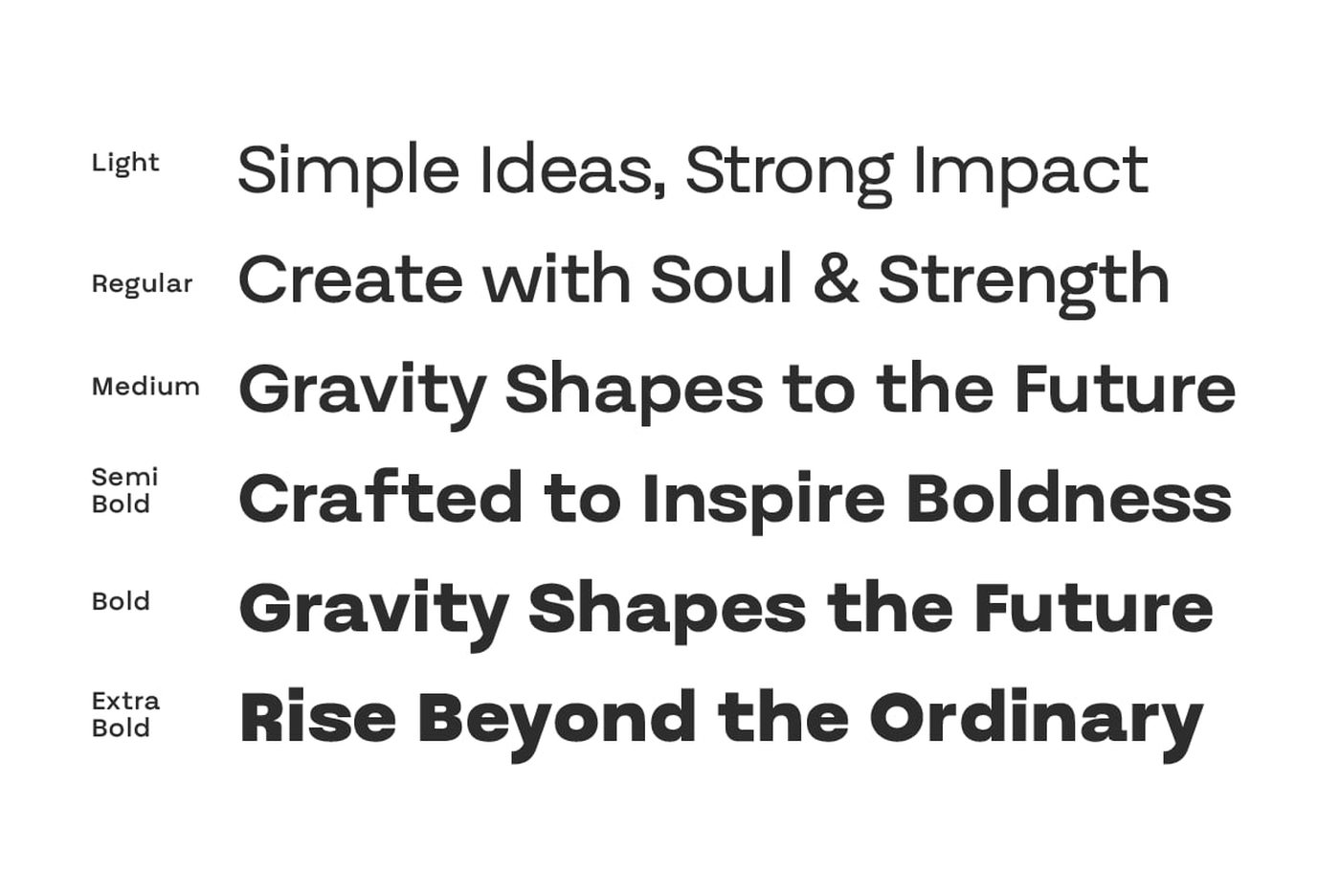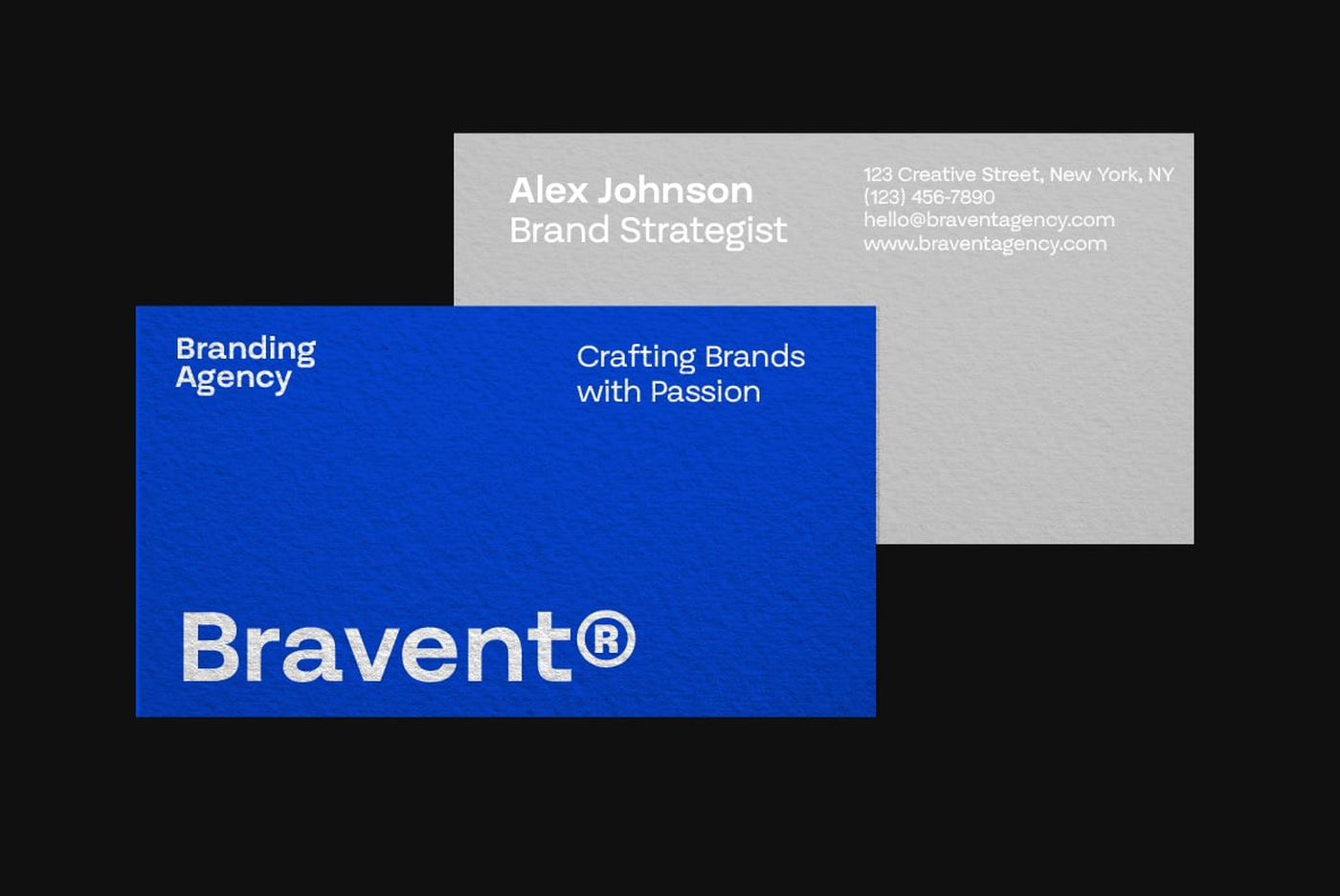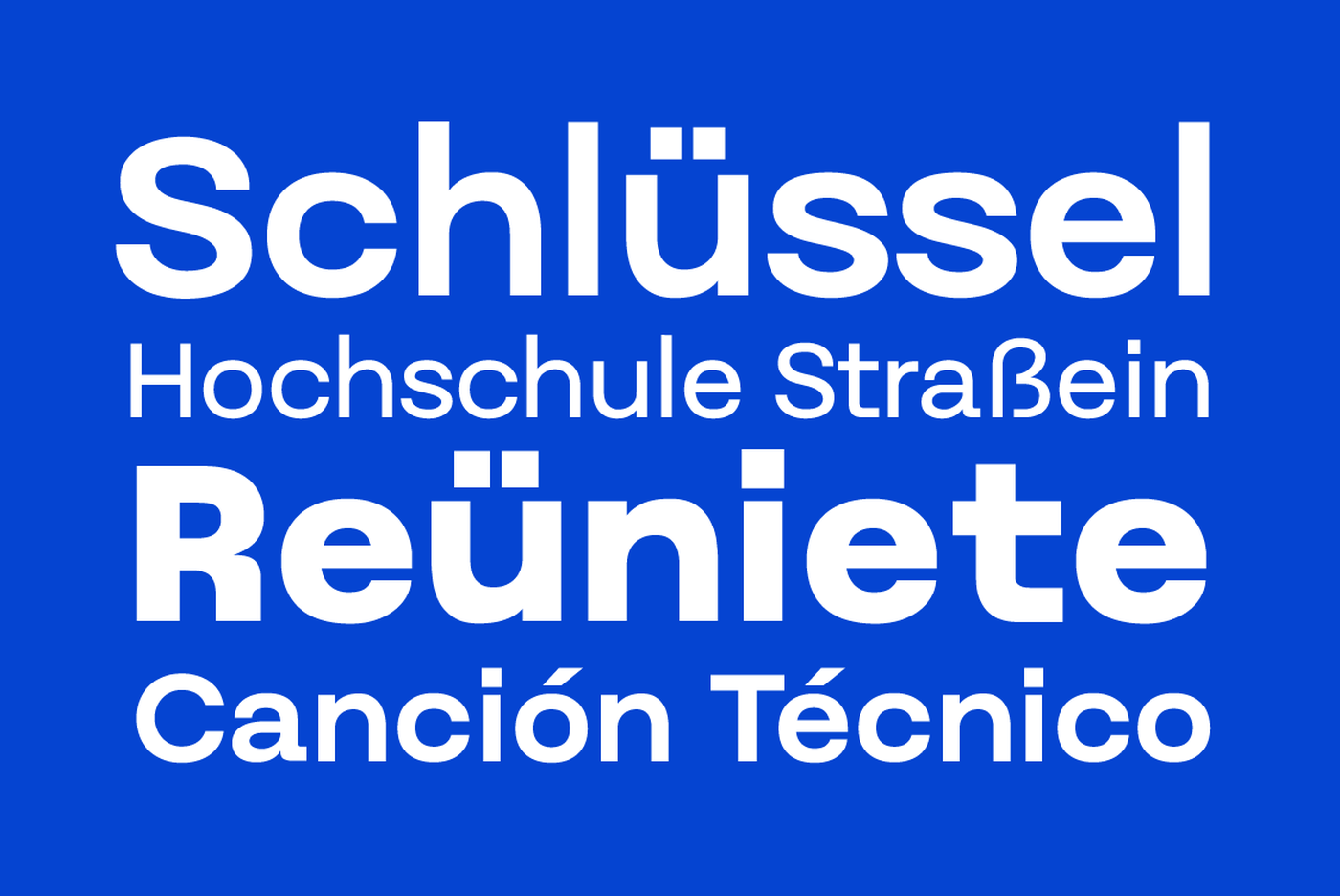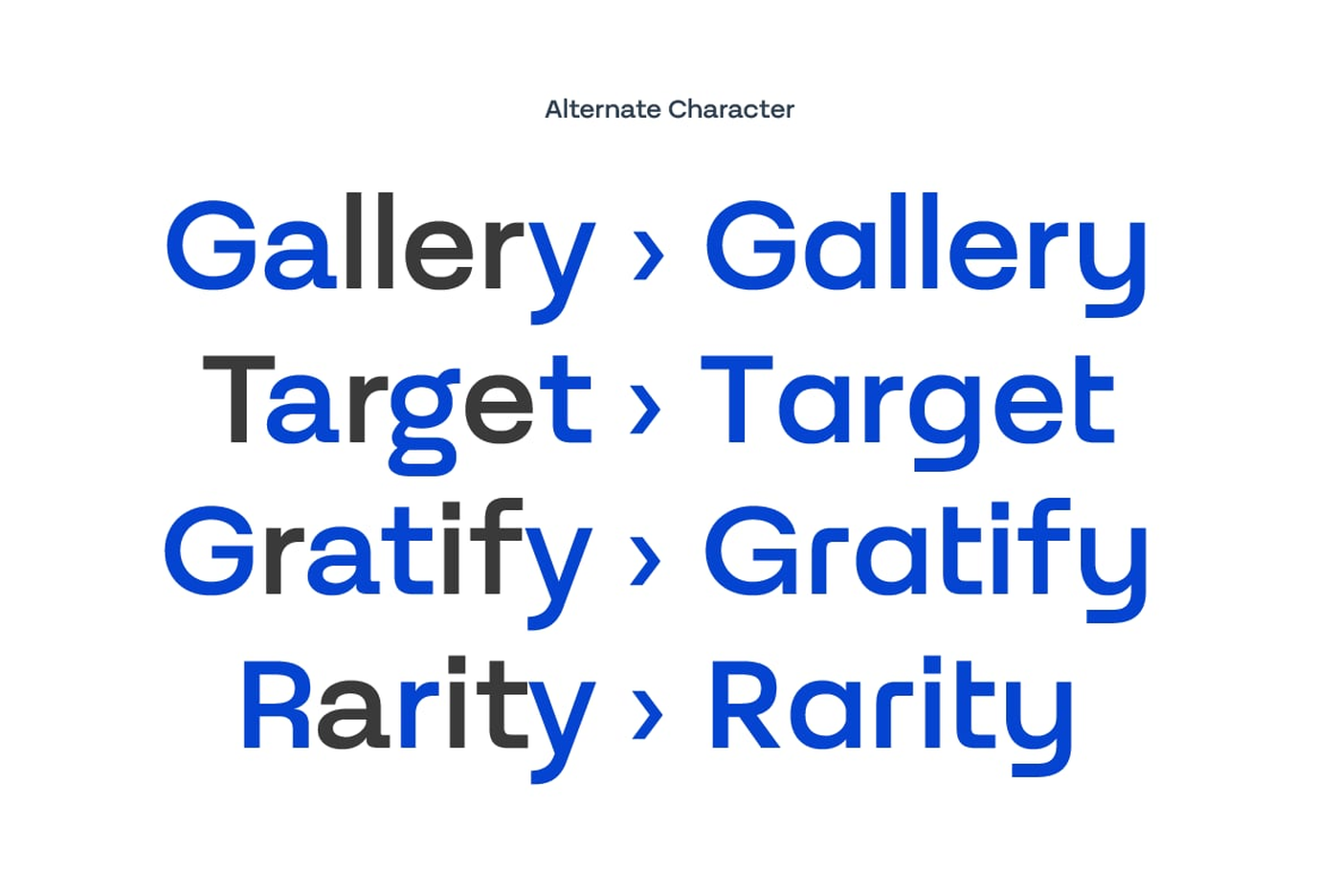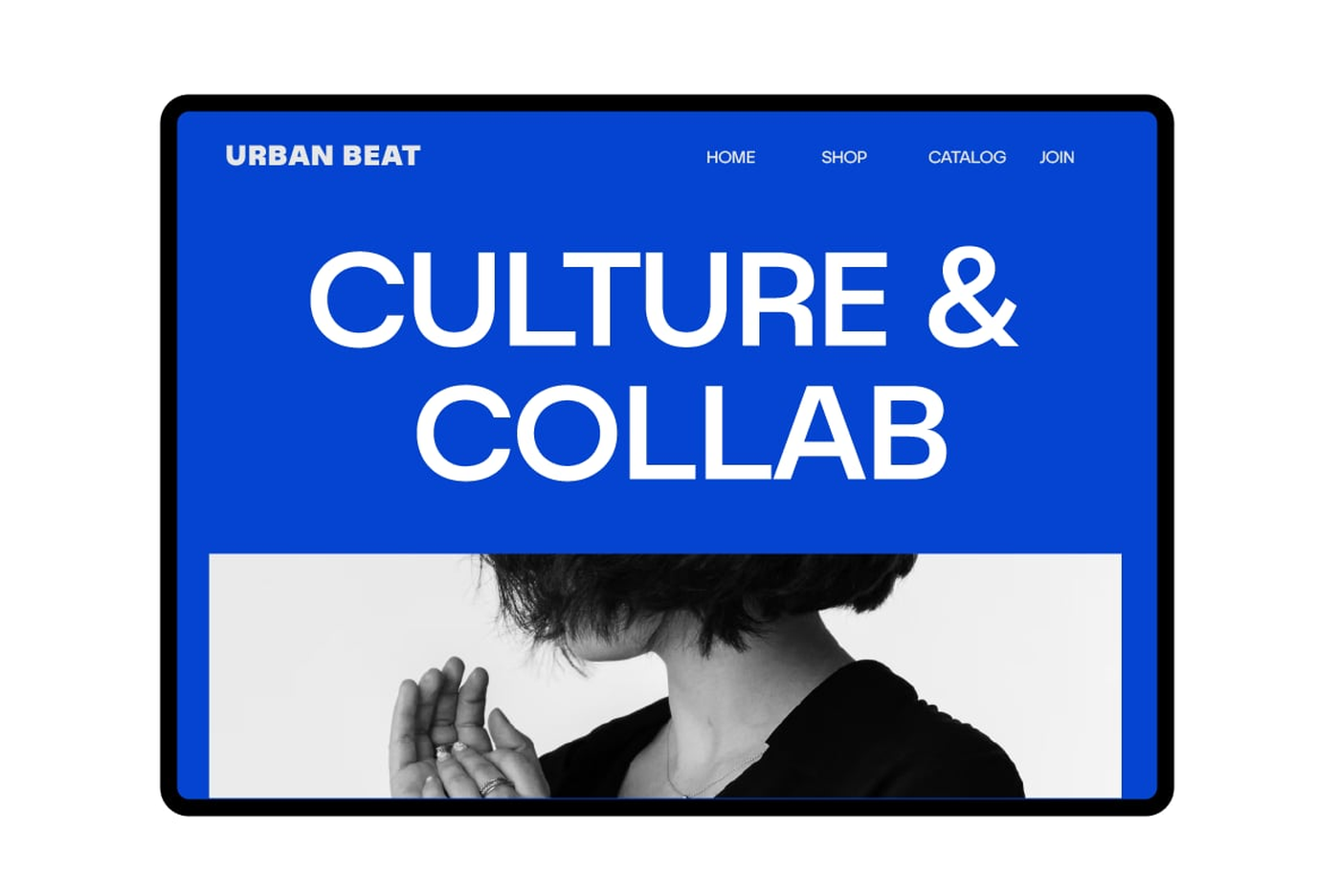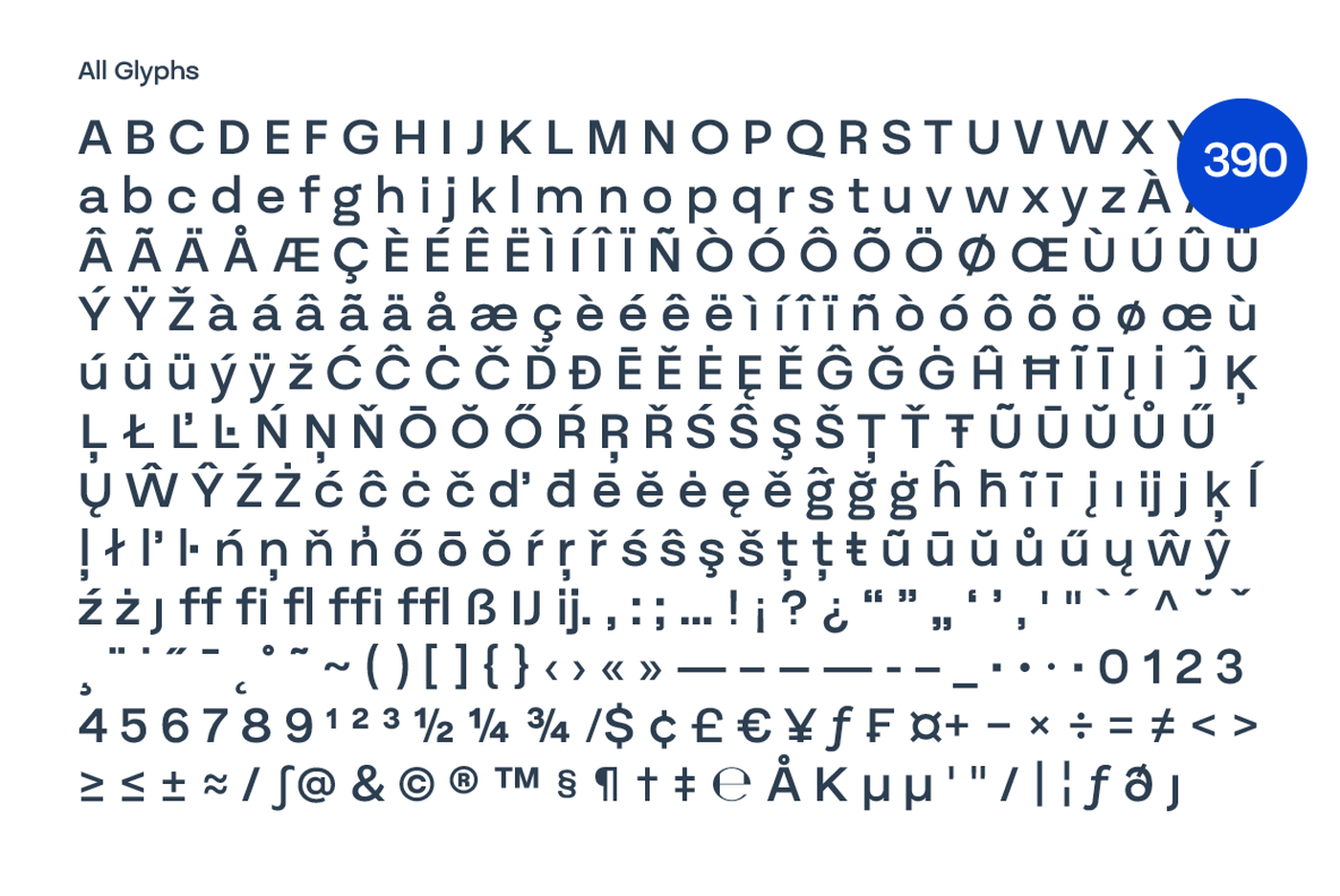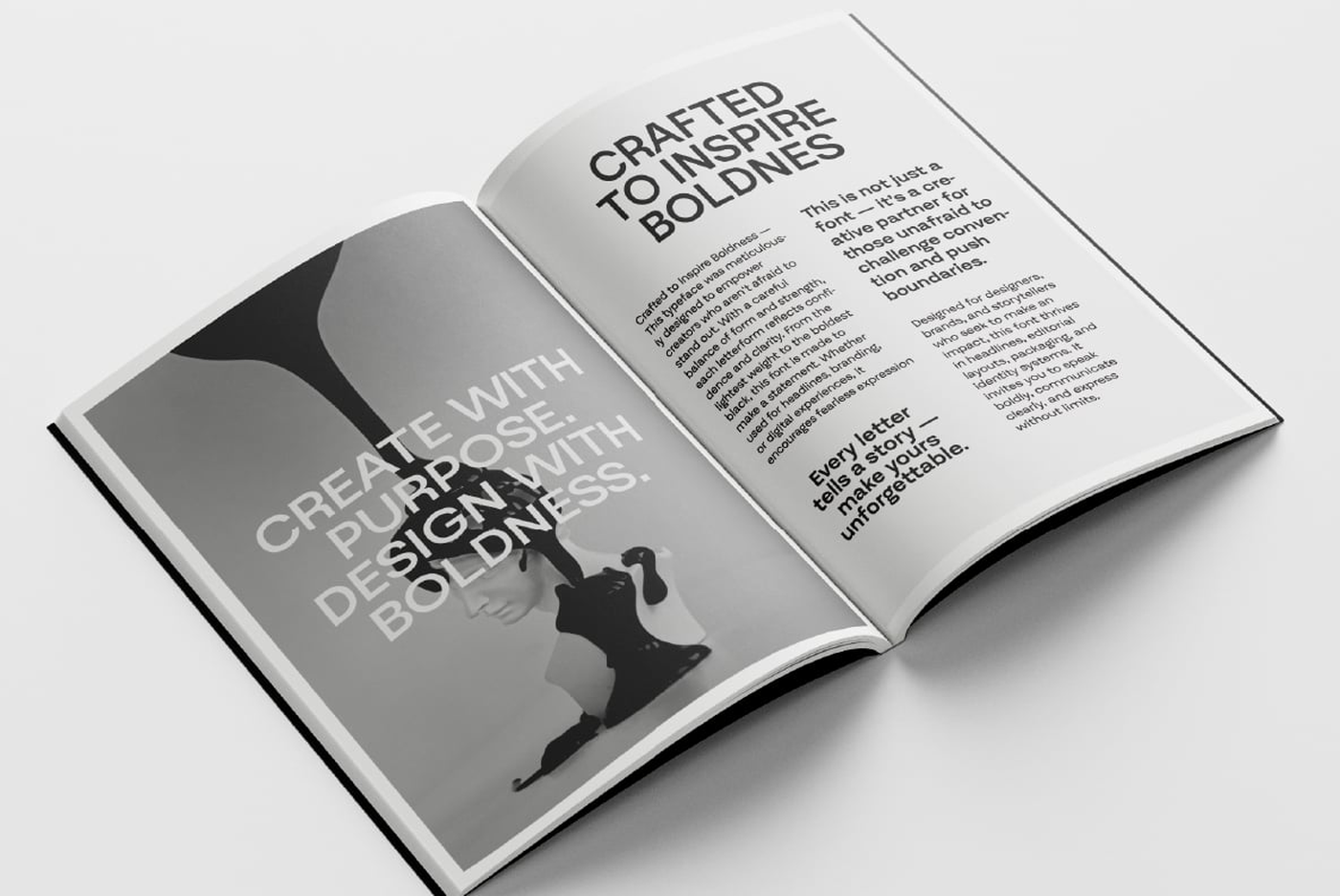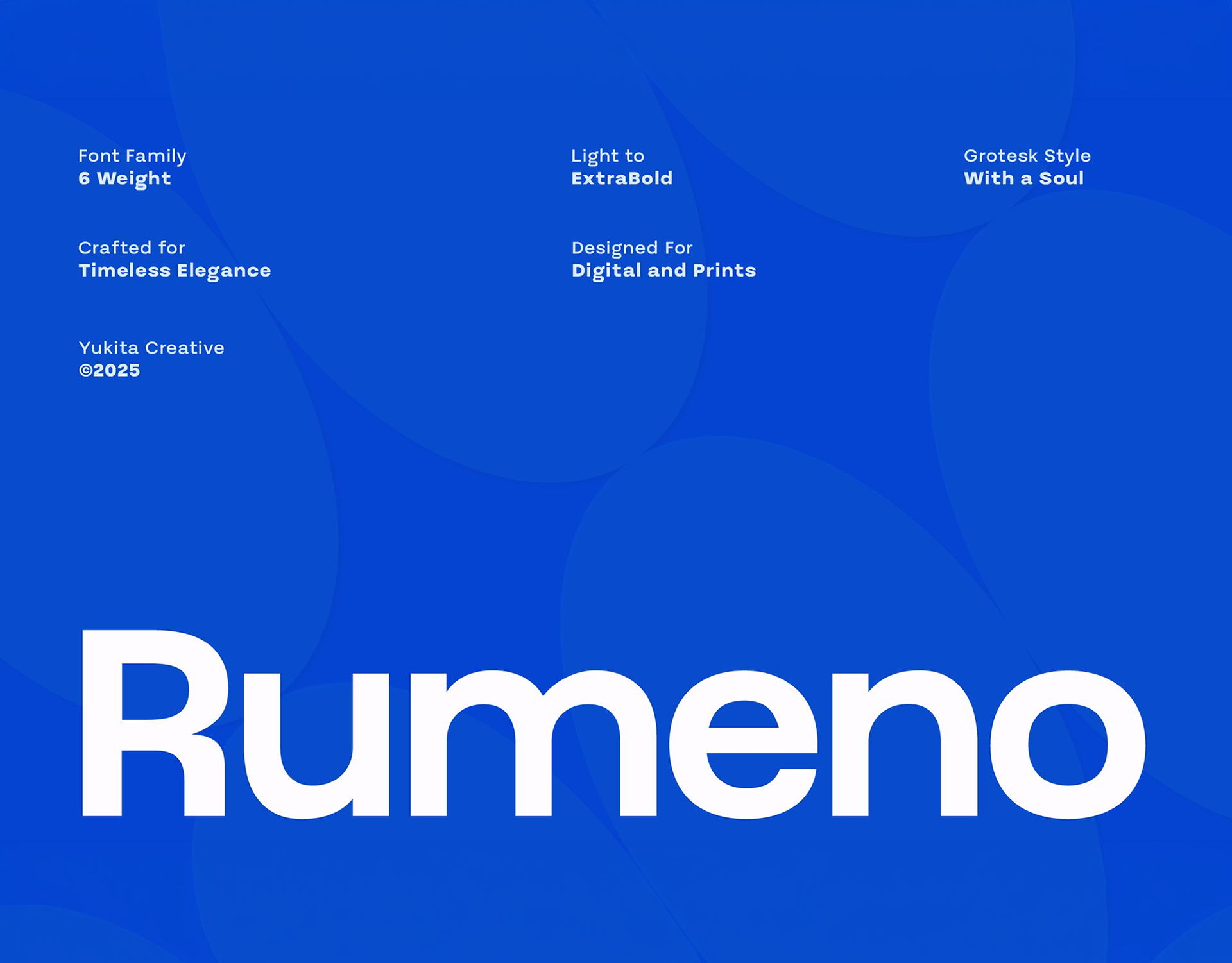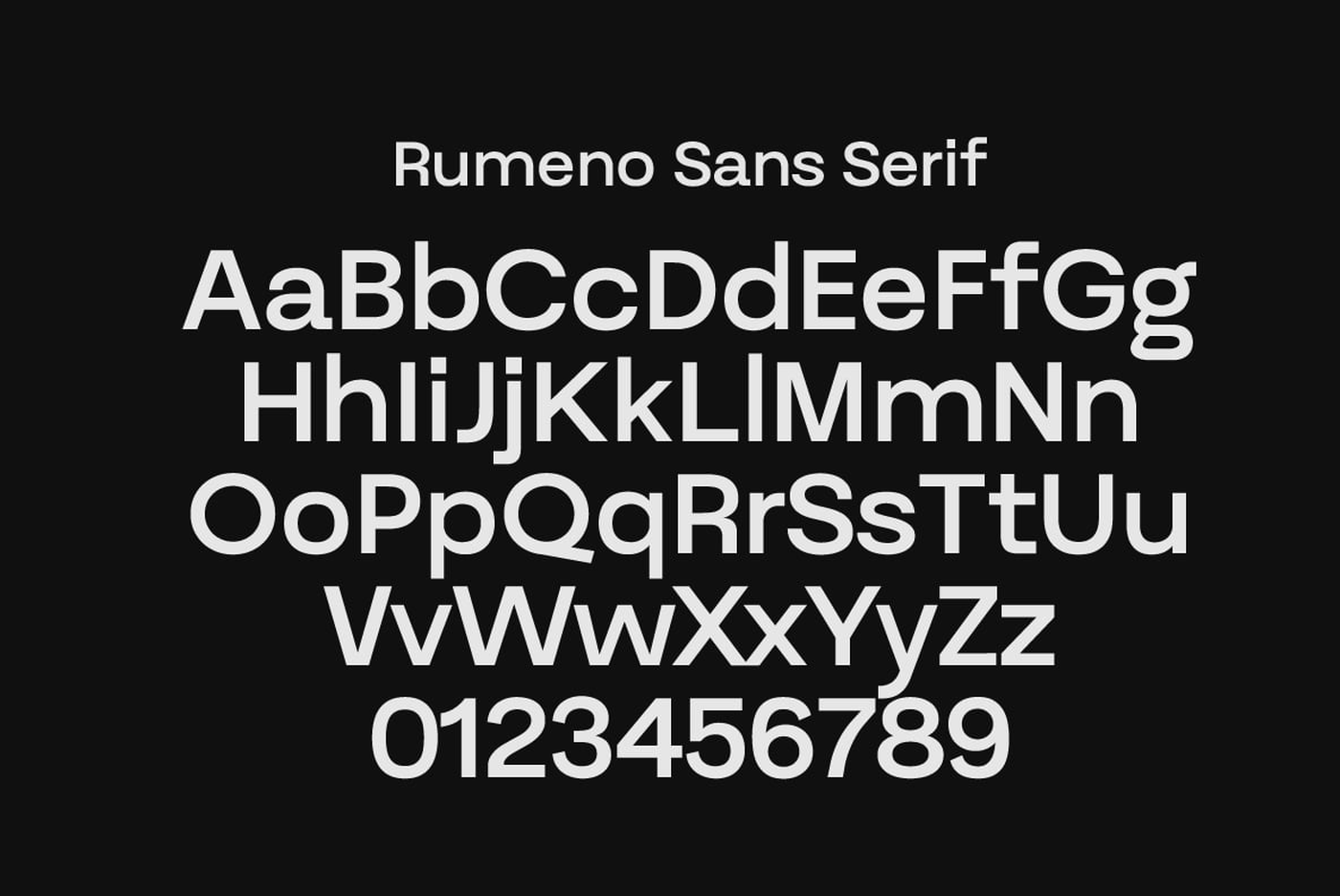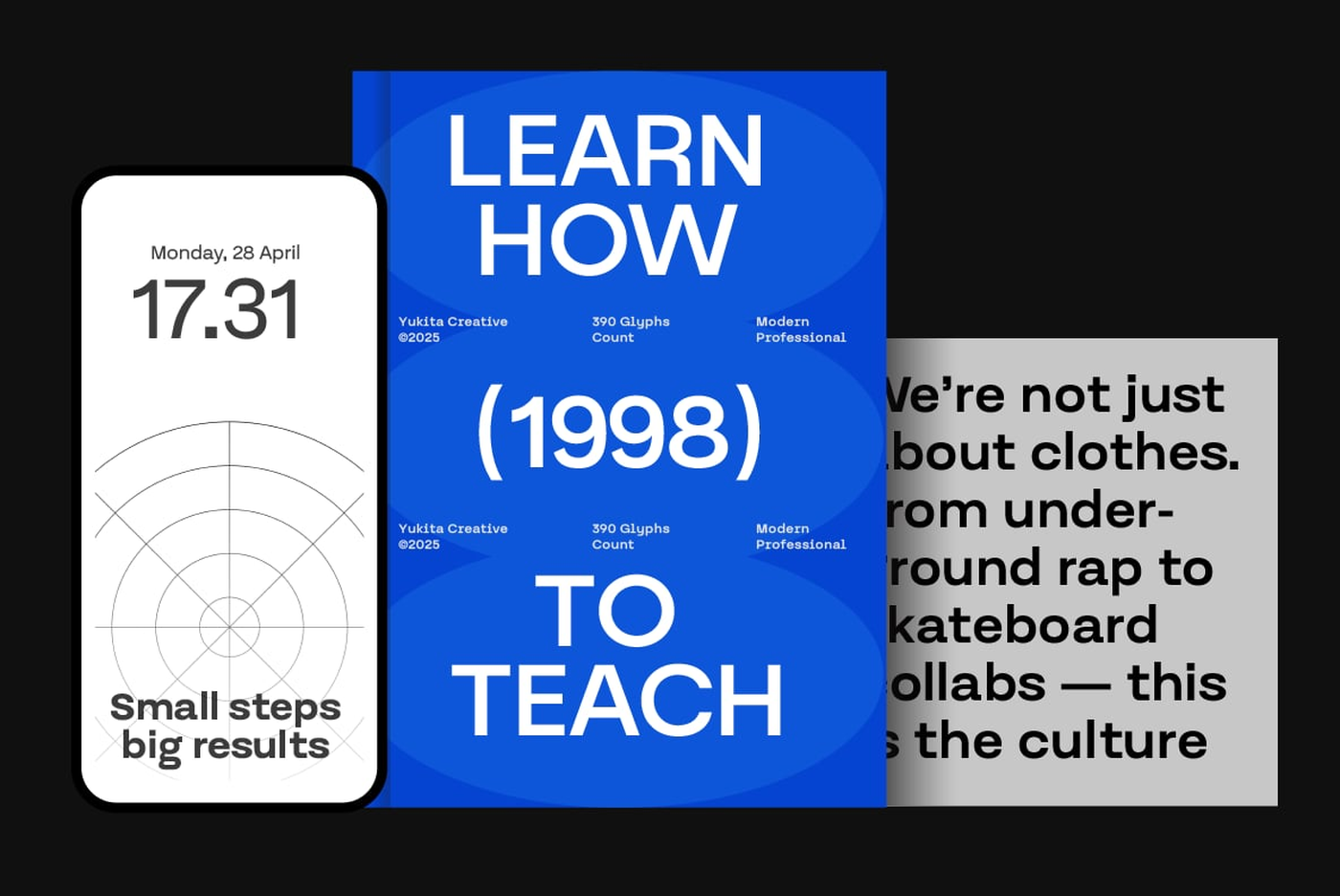
Rumeno - Sans Serif Font Family
Rumeno is a clean and versatile grotesk style sans serif typeface designed to bring clarity, balance, and boldness to your creative projects. With 6 carefully crafted weights from Light to ExtraBold, Rumeno offers strong visual hierarchy and refined legibility, perfect for both print and screen use. Rumeno doesn’t just focus on clean design—it also gives you creative freedom. The typeface includes alternate characters to add personality and flexibility to your typography.
Designer: Yukita Creative
Font: Rumeno